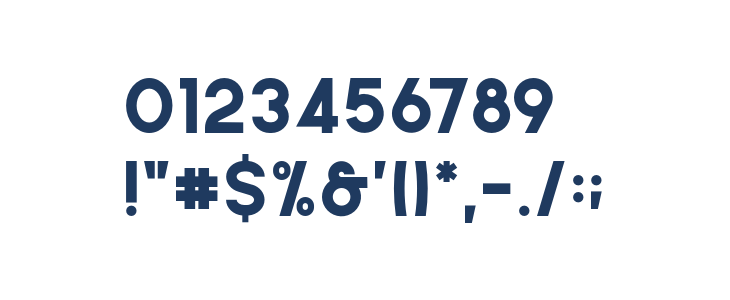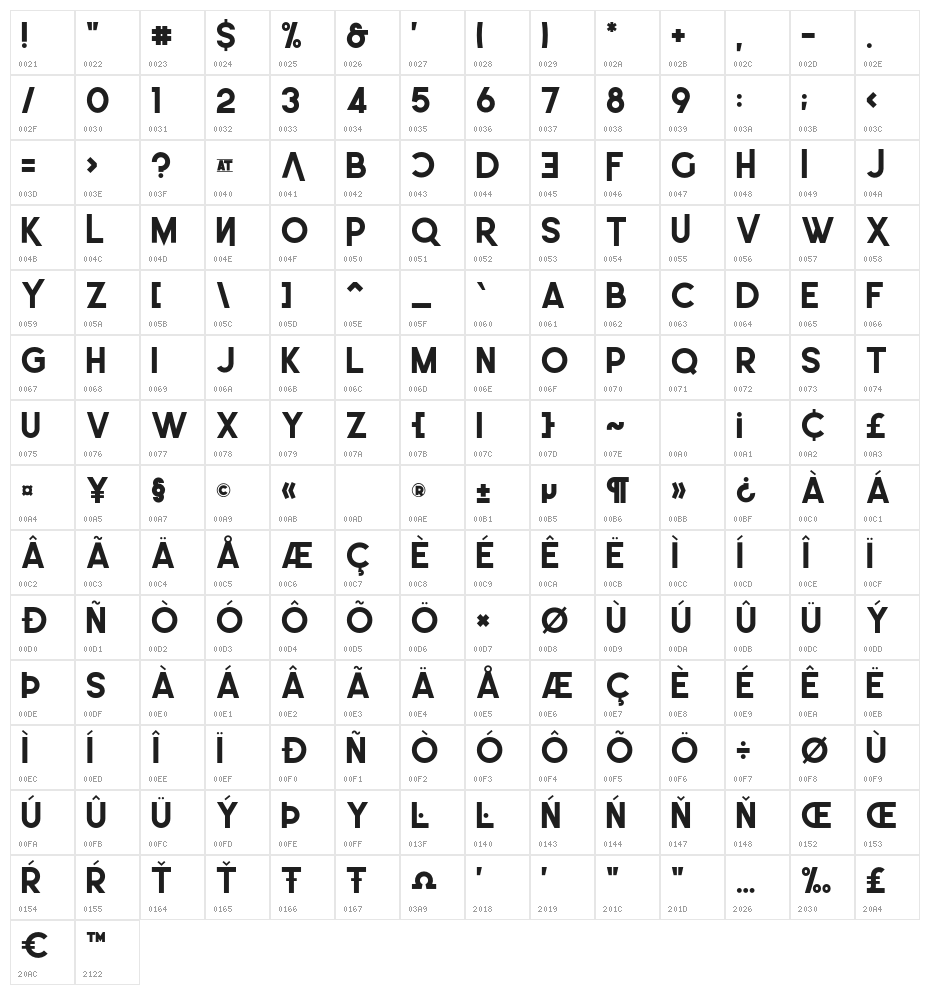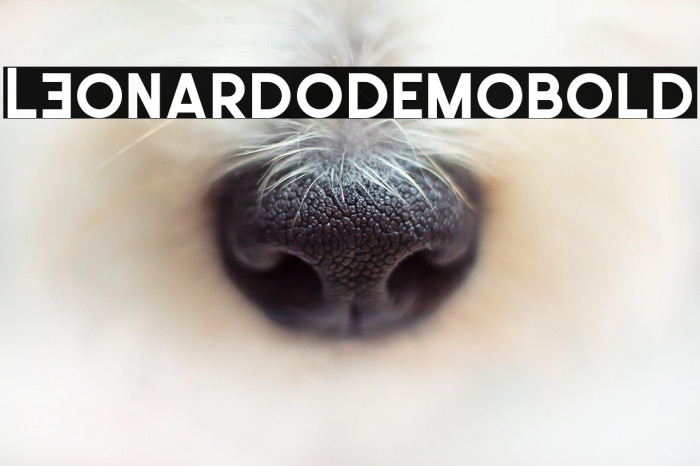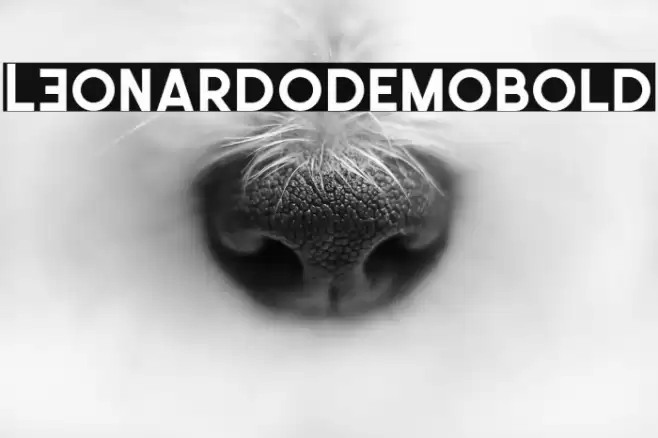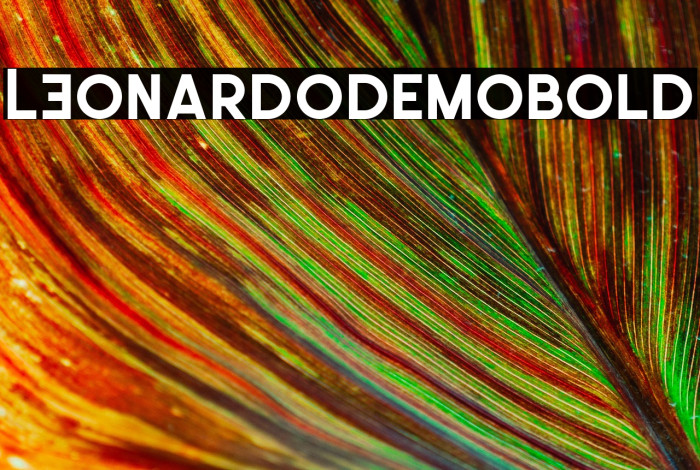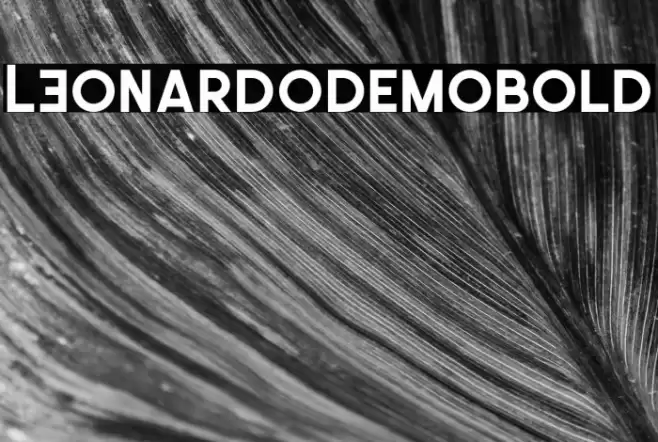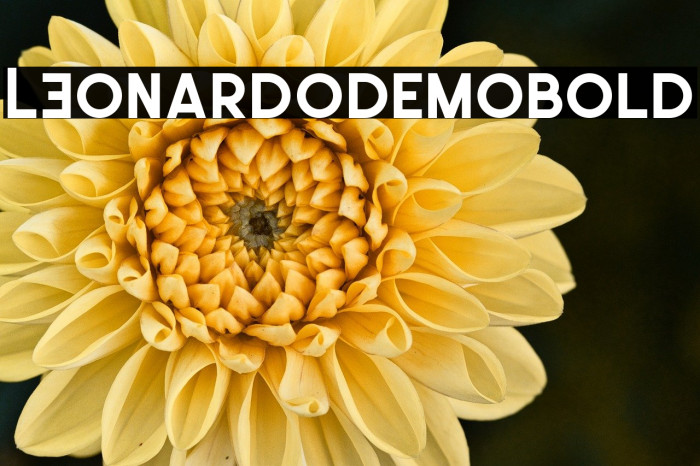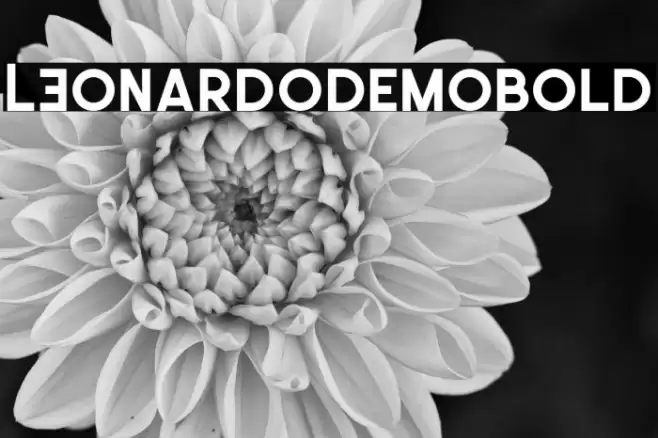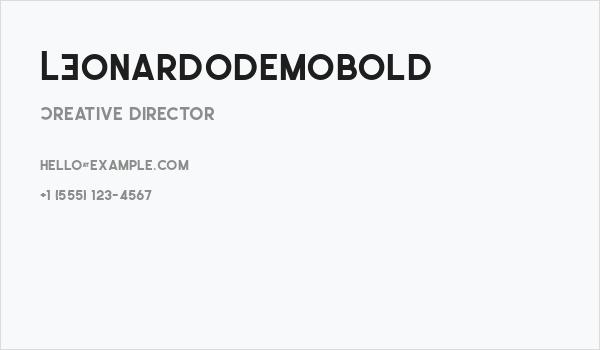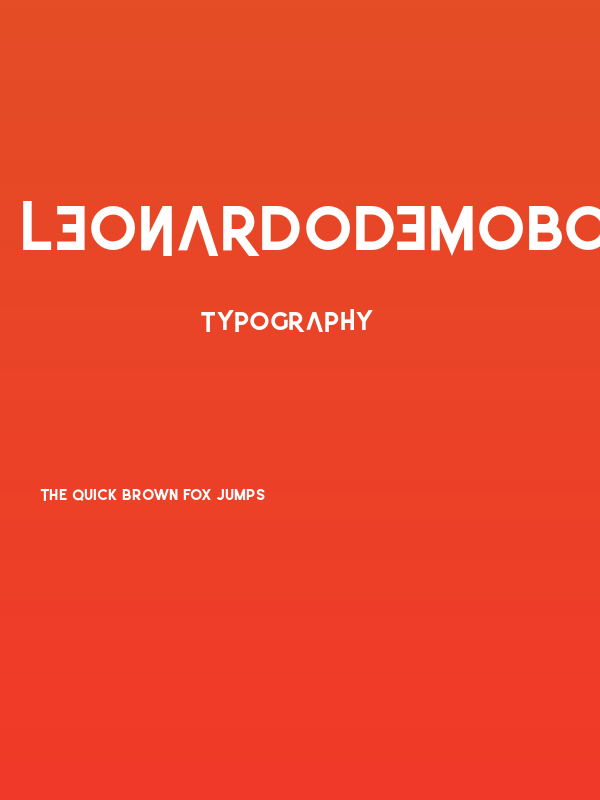
LEonardoDemoBold Font
LEonardoDemoBold Description
This font features a bold and geometric design with clean, sharp lines and a modern aesthetic. The uppercase letters are uniform in height and width, creating a cohesive and structured appearance. The lowercase letters maintain the same geometric style, offering a seamless transition between cases. Numbers are bold and clear, ensuring readability. Special characters are designed with the same attention to detail, making them easily distinguishable. The overall style is contemporary and versatile, suitable for a variety of design applications.
Use CaseHeadlines, Logos, Branding
Proposed ProjectsIdeal for branding, advertising, headlines, and digital media projects that require a strong and modern visual impact.